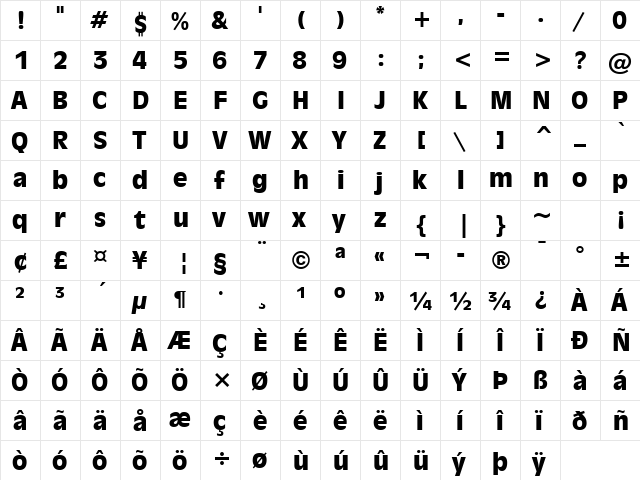
Incised901 BT Black Font Preview
Incised901 BT Black
Design Context for Incised901 BT Typeface
Incised901 BT offers clean, dependable letterforms without strong stylistic allegiance, making it a practical choice for designers who need flexibility.
Pro Tip: Use Incised901 BT in both headline and body roles to test its range before committing to a single application.